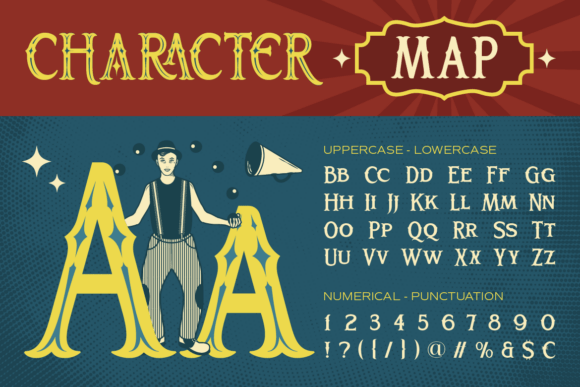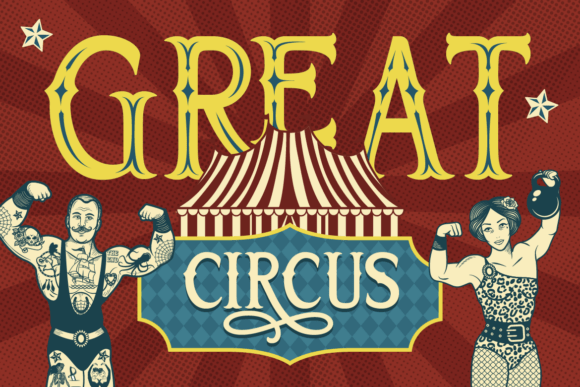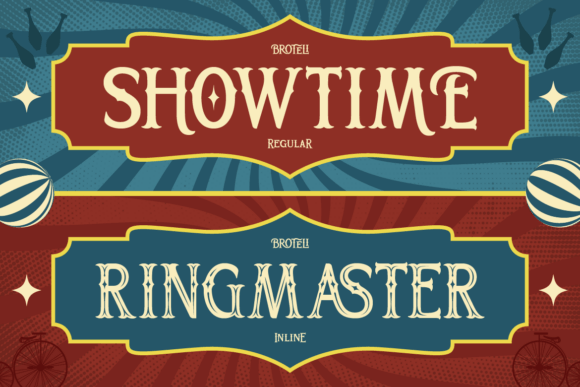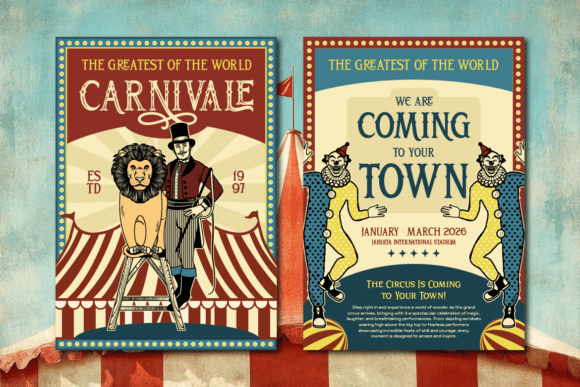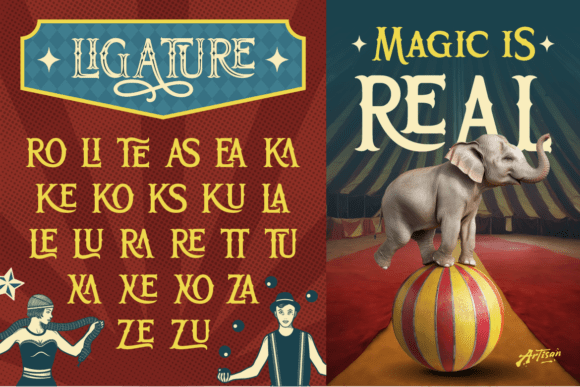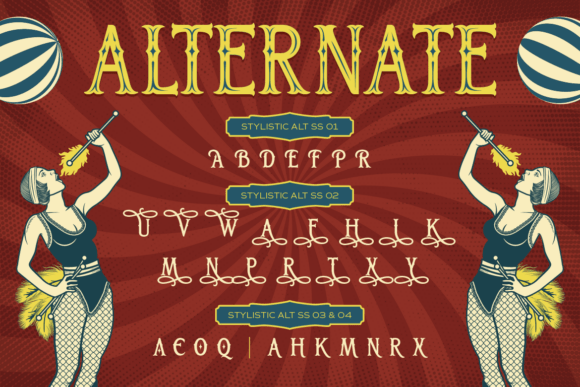
Step Right Up: Introducing the Broteli Font
Have you ever stumbled upon an old, worn circus poster and felt the thrill of stepping into a bygone era? The colors, the typography, the sense of excitement – it’s a moment that sparks creativity and inspires designers to create something truly magical. And now, that same magic can be brought to your designs with the Broteli Font, a vintage display font that embodies the spirit of classic carnival posters and retro signage.
This bold, decorative serif font is designed to add a touch of nostalgia and playfulness to your designs. With its regular and inline styles, stylish alternates, and ligatures, Broteli Font gives you the flexibility to create layered typography that’s both eye-catching and timeless. Whether you’re designing posters, branding, or editorial layouts, this font is sure to bring a theatrical charm that’s hard to resist.
Broteli Font Key Features
- Font Family: Broteli Font comes in a single font family with multiple styles, including Regular, Italic, Bold, and Bold Italic.
- Unique Characteristics: The font features a unique blend of modern and vintage elements, with clean lines, geometric shapes, and subtle texture, making it suitable for a wide range of design projects.
Broteli Font Review
I recently had the chance to work with the Broteli font, and I must say it’s a unique and interesting typeface. ✨ The first thing that caught my attention was its eclectic mix of modern and vintage elements, which makes it perfect for projects that require a dash of personality.
- ✨ The font’s versatility: Broteli works well in both digital and print formats, making it a great choice for a wide range of projects.
- ✨ The unique letterforms: Each letter has a distinctive character, which adds to the font’s charm and makes it stand out from more common typefaces.
- ✨ The font’s scalability: Broteli looks great in both large and small sizes, making it perfect for headlines, body text, or even logos.
- ⚠️ Limited language support: Broteli seems to be optimized for Latin-based languages, which may limit its use for projects that require support for other languages.
Overall, I think the Broteli font is a great choice for designers who want to add a unique touch to their projects. While it may have some limitations, its versatility and unique character make it a valuable addition to any design arsenal.